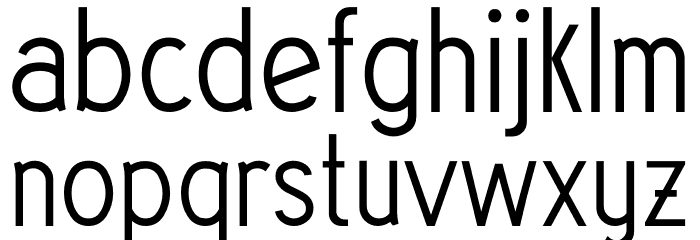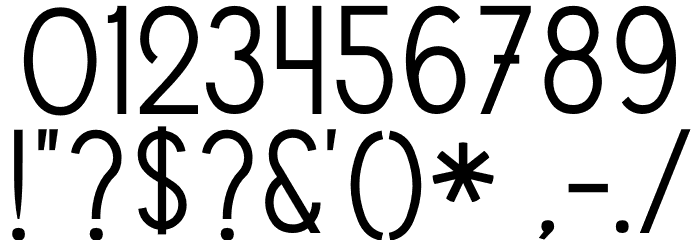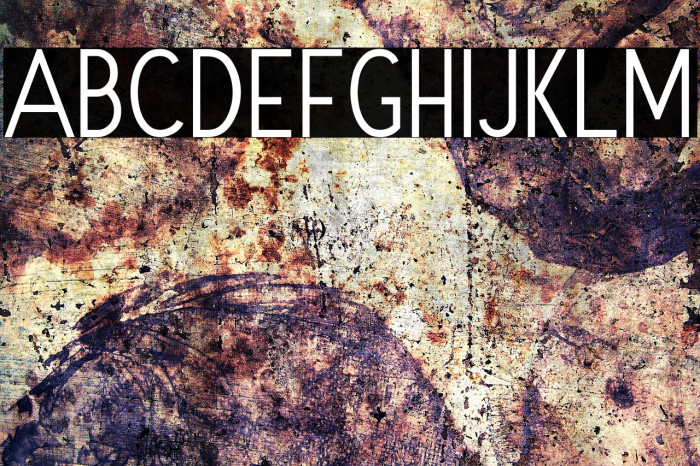
Vintage Avalanche Font
This font features a clean and modern sans-serif design with uniform stroke widths, giving it a sleek and contemporary appearance. The characters are well-proportioned, with a slightly condensed width that enhances readability while maintaining a stylish aesthetic. The uppercase letters are bold and commanding, while the lowercase letters offer a softer, more approachable feel. The numerals are clear and distinct, making them ideal for both display and text purposes. Special characters are thoughtfully designed to complement the overall style, ensuring versatility across various applications.
A modern sans-serif font with clean lines and a slightly condensed width.
- Proposed Projects: Ideal for branding, advertising, web design, and editorial layouts where a modern and clean look is desired.